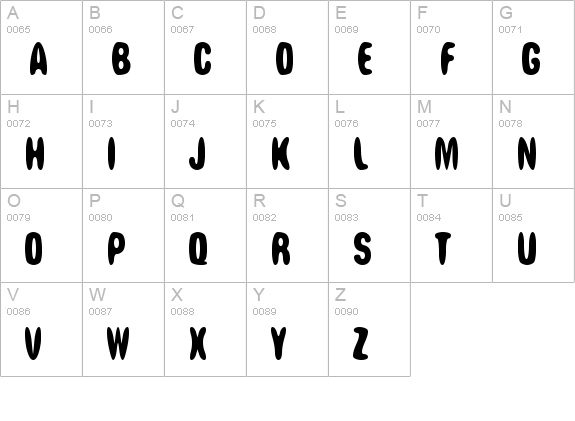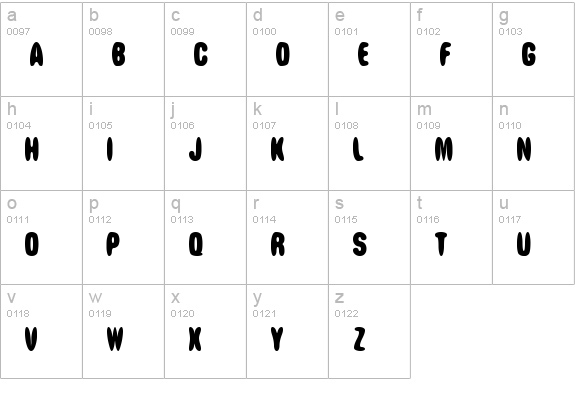
Margaline Font Details
Introducing Margaline font - a captivating typeface that effortlessly blends elegance and modernity. With its sleek and stylish design, Margaline is the perfect choice for any project that requires a touch of sophistication. This versatile font features clean lines and balanced proportions, making it suitable for a wide range of applications. Whether you're designing a logo, crafting a unique brand identity, or creating eye-catching headlines, Margaline will elevate your work to new heights. But what sets Margaline font apart from the rest is not just its stunning aesthetics - it's also the fact that it is free! Yes, you read that right. Margaline font is freely available to download at FontsMarket.com, making it accessible to designers and creatives of all backgrounds. Now you can enjoy the breathtaking beauty of Margaline without any restrictions. Embrace its timeless elegance and let your creativity soar. Transform your designs into masterpieces that will leave a lasting impression on your audience. With Margaline font, you have the power to captivate and inspire. So why wait? Go ahead and download Margaline font for free at FontsMarket.com today. Unleash your imagination and create designs that truly stand out from the crowd.